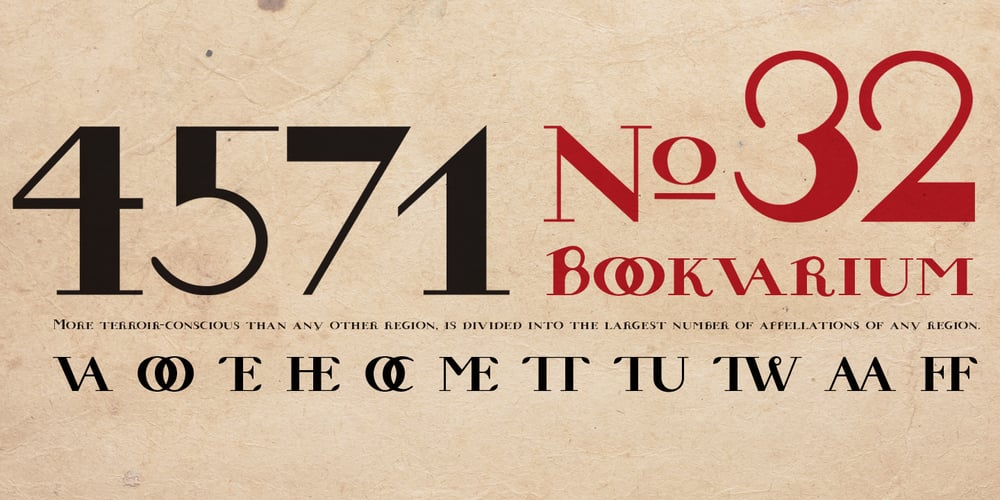
Bookvarium Roman Font Family was designed by Vsevolod Vlasenko and published by Letterhead Studio-VV. Bookvarium Roman contains 1 styles and family package options. A unique display font based on the research in vintage and old fonts from the beginning of the 20th century. Perfectly work for headlines in print or can be a spice to any other design.